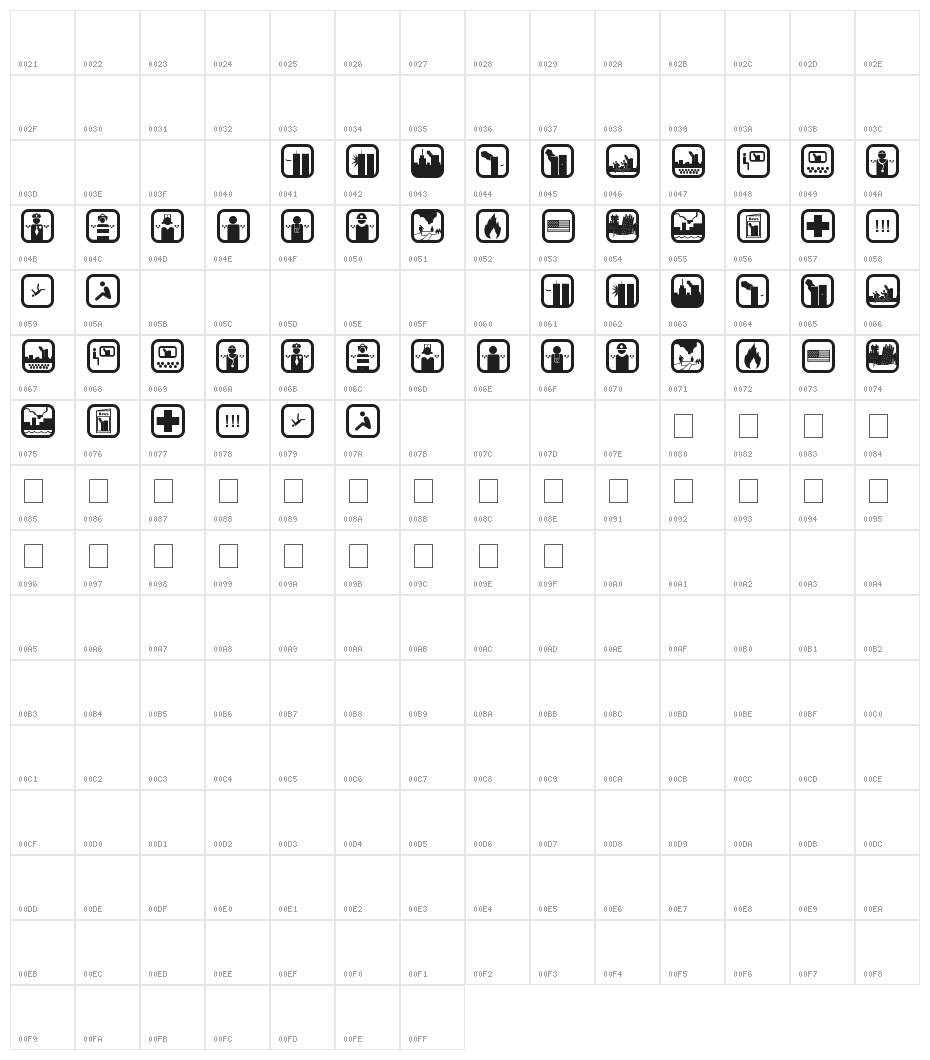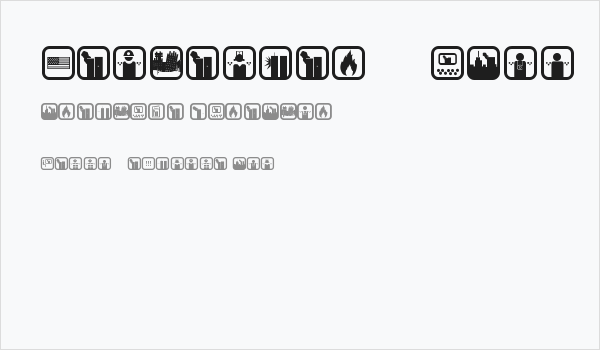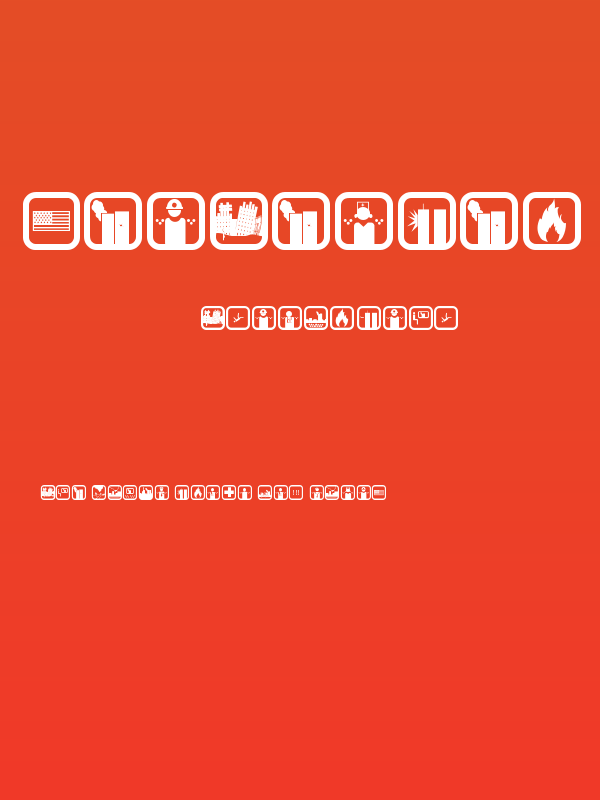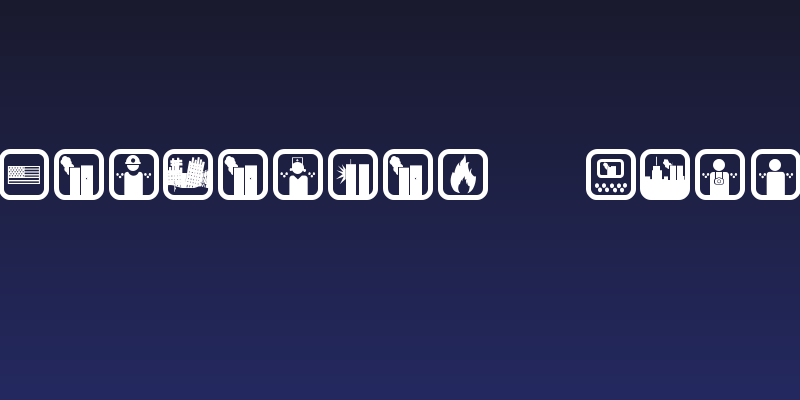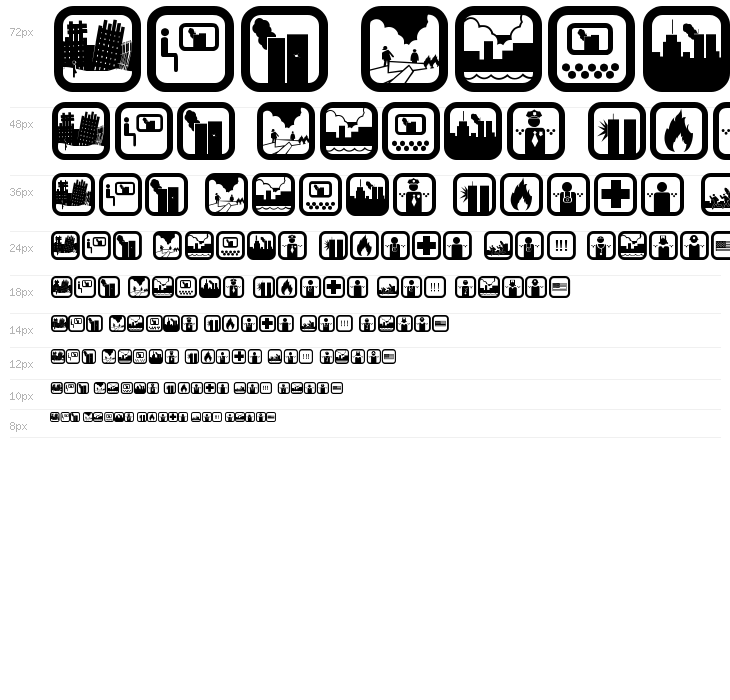
SEPTEMBER 11 ICON Font
SEPTEMBER 11 ICON Description
A pictogram-style icon set font with each glyph enclosed in a rounded square, depicting various scenes and symbols related to emergency, disaster, and urban environments. The icons are bold, high-contrast, and easily recognizable, designed for clear communication.
Overall StyleModern, Pictogram, Informative
Use CaseIcons, Signage, Infographics, Thematic posters
Proposed ProjectsInfographics, emergency signage, educational materials, awareness campaigns, editorial illustrations.